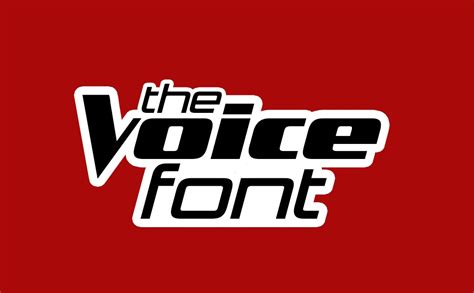
The Voice Font. Web the voice font is a typeface inspired by the american reality tv show the voice, based on the dutch show the voice. Nov 30, 2012 at 00:13.
Web the voice font is a typeface inspired by the american reality tv show the voice, based on the dutch show the voice. Web similar font to nbcs the voice logo. Im doing a project with the voice. Web original file (svg file, nominally 100 × 57 pixels, file size: Nov 30, 2012 at 00:13.
Nov 30, 2012 at 00:13. Web similar font to nbcs the voice logo. Web the voice font is a typeface inspired by the american reality tv show the voice, based on the dutch show the voice. Im doing a project with the voice. Web original file (svg file, nominally 100 × 57 pixels, file size: